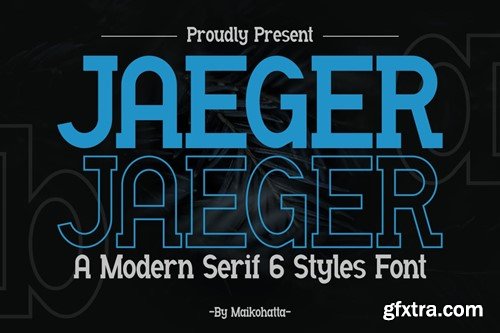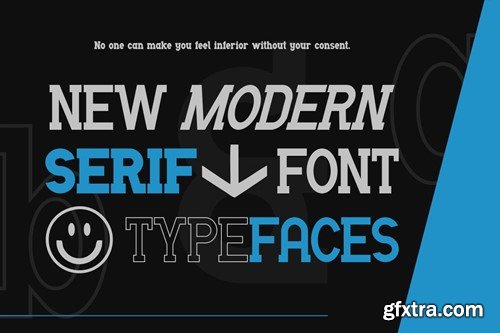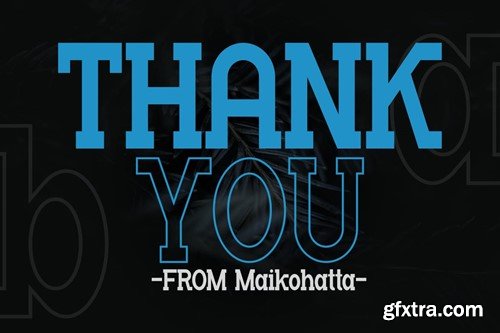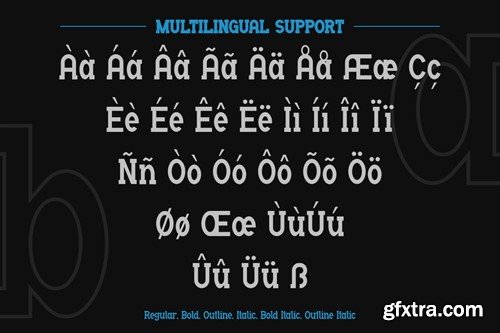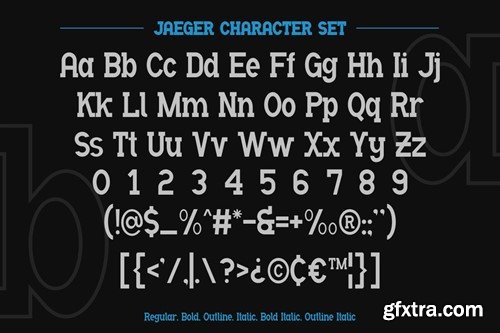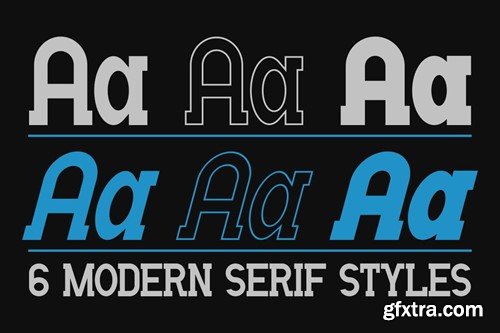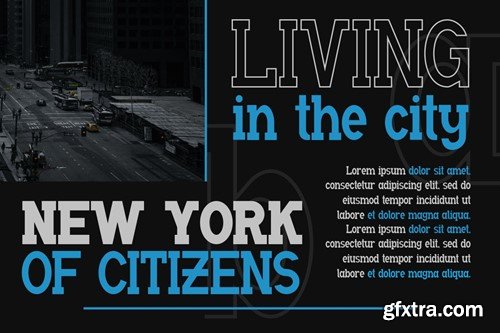
Jaeger - Modern Serif Font Family
Introducing our new product Jaeger Modern Serif Font Family
This font has a series of small or decorative projections called serifs at the ends of its characters. Serifs provide a more formal, classic, and easy-to-read appearance to printed text. Serif fonts are often used in formal documents, books, and print publications because of their good legibility at small text sizes.
• Uppercase
• Lowercase
• Multilingual
Style Font
• Regular
• Regular Italic
• Bold
• Bold Italic
• Outline
• Outline Italic